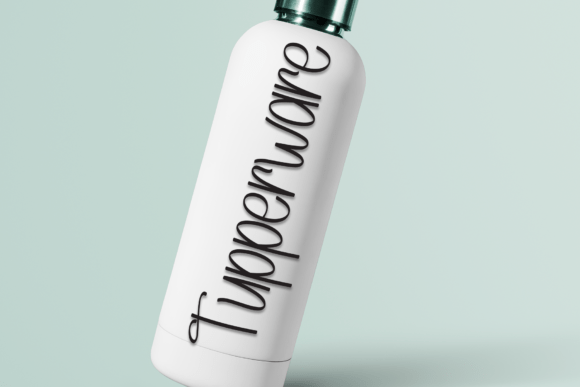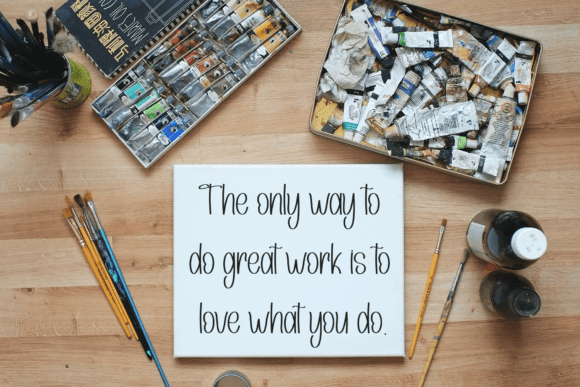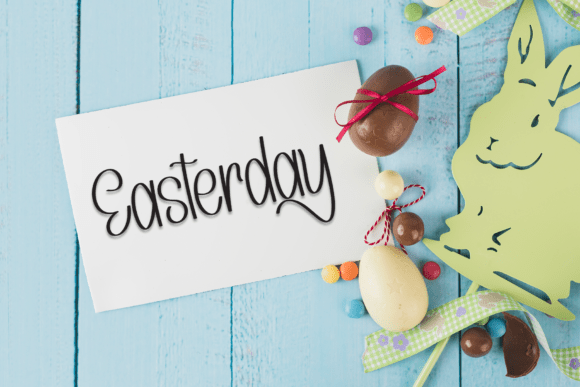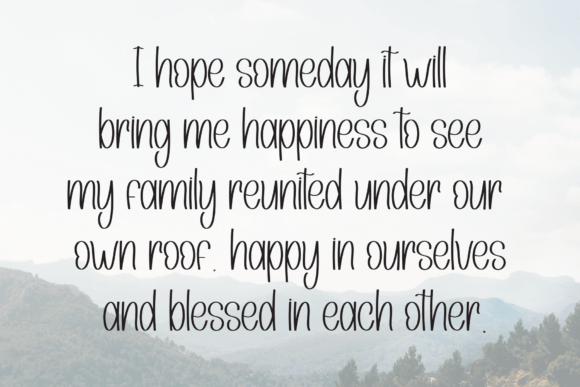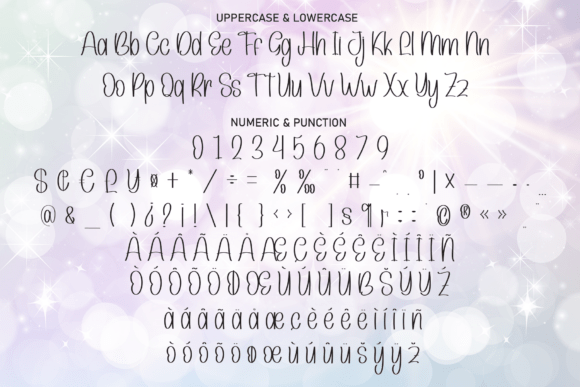
Introducing Brightnes Font: Elevate Your Designs with Elegance and Playfulness
In the world of typography, fonts play a crucial role in conveying the tone and personality of a design. For designers and crafters looking to add a touch of modern elegance and playfulness to their projects, Brightnes Font is an excellent choice. This stylish handwritten script font is designed to blend sophistication with a charming, personal feel, making it perfect for a wide range of applications.
The Characteristics of Brightnes Font
Brightnes Font is characterized by its fluid strokes and charming curves, which give it a unique and distinctive appearance. The font’s modern elegance is balanced by a playful touch, making it versatile and suitable for various design projects. Whether you’re creating logos, packaging, invitations, or any other visual material, Brightnes Font is sure to add a personal and creative touch.
Key Features of Brightnes Font
• Modern Elegance: Brightnes Font boasts a sleek and contemporary design that will elevate your projects and give them a sophisticated look.
• Playful Touch: The font’s playful curves and fluid strokes add a charming and whimsical feel to your designs, making them more engaging and eye-catching.
• Versatility: Brightnes Font is suitable for a wide range of applications, including logos, packaging, invitations, and more.
• Personal Feel: The font’s handwritten script style gives it a personal and unique feel, allowing you to add a touch of personality to your designs.
Uses of Brightnes Font
Brightnes Font is an incredibly versatile typeface that can be used in various design projects. Here are some of the most popular uses of this beautiful font:
• Logo Design: Brightnes Font is perfect for creating stunning logos that require a touch of elegance and sophistication.
• Packaging Design: The font’s playful and modern design makes it ideal for packaging projects that require a unique and eye-catching look.
• Invitation Design: Brightnes Font is a great choice for designing invitations, such as wedding invitations, birthday invitations, and more.
• Branding: The font’s consistent and harmonious design makes it suitable for branding projects that require a cohesive and professional look.
Benefits of Using Brightnes Font
Using Brightnes Font in your design projects offers several benefits, including:
• Unique and Creative Look: Brightnes Font’s distinctive design ensures that your projects stand out from the crowd and grab attention.
• Ease of Use: The font is easy to read and works well in various sizes, making it suitable for a wide range of applications.
• Customization: Brightnes Font can be easily customized to fit your project’s specific needs, allowing you to experiment with different styles and effects.
• Time-Saving: With Brightnes Font, you can save time and effort in creating unique and creative designs, allowing you to focus on other aspects of your project.
Brightnes Font is a stylish and versatile handwritten script font that offers a perfect blend of modern elegance and playfulness. Its fluid strokes and charming curves make it an excellent choice for designers and crafters looking to add a personal and creative touch to their projects. With its wide range of applications and benefits, Brightnes Font is sure to become a valuable addition to your design toolkit.